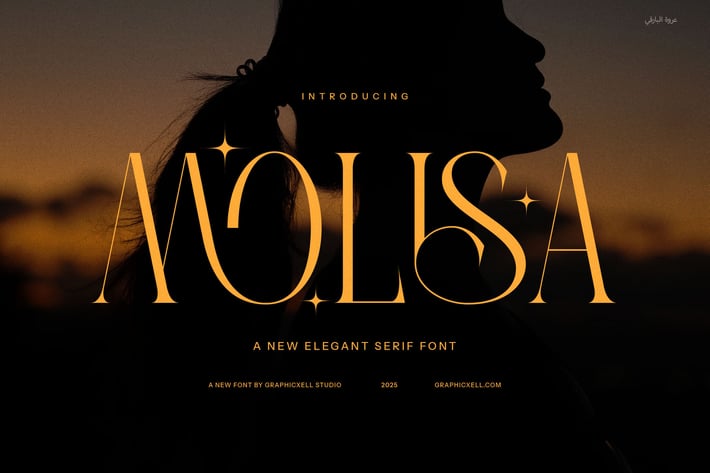
Molisa Elegant Serif Font
Molisa Elegant Serif is a refined and stylish typeface that embodies sophistication, modernity, and timeless beauty. Designed with precision, this font features graceful serifs, smooth curves, and a collection of exquisite ligatures and alternates that add a touch of uniqueness to any design.
With its luxurious yet contemporary appeal, Molisa is perfect for high-end branding, editorial layouts, and premium packaging. Its delicate letterforms and well-balanced proportions create an effortlessly elegant aesthetic, making it ideal for fashion labels, boutique businesses, upscale restaurants, and creative projects that demand a distinctive, polished look.
What sets Molisa apart is its ability to adapt seamlessly to different applications—whether for elegant logo designs, magazine headlines, stylish invitations, or sophisticated website typography. Its high readability combined with artistic details ensures that every design feels refined and captivating.
Designed for those who appreciate beauty in typography, Molisa Elegant Serif offers endless creative possibilities with its alternates and ligatures, allowing for custom typography that feels unique and exclusive. Whether used in print or digital formats, this font enhances visual storytelling, adding a sense of class and sophistication to every project.
Elevate your designs with the graceful charm of Molisa Elegant Serif. Perfect for brands that seek to make a lasting impression, this typeface brings a touch of timeless elegance and modern luxury, ensuring your work stands out with unparalleled style.
With its luxurious yet contemporary appeal, Molisa is perfect for high-end branding, editorial layouts, and premium packaging. Its delicate letterforms and well-balanced proportions create an effortlessly elegant aesthetic, making it ideal for fashion labels, boutique businesses, upscale restaurants, and creative projects that demand a distinctive, polished look.
What sets Molisa apart is its ability to adapt seamlessly to different applications—whether for elegant logo designs, magazine headlines, stylish invitations, or sophisticated website typography. Its high readability combined with artistic details ensures that every design feels refined and captivating.
Designed for those who appreciate beauty in typography, Molisa Elegant Serif offers endless creative possibilities with its alternates and ligatures, allowing for custom typography that feels unique and exclusive. Whether used in print or digital formats, this font enhances visual storytelling, adding a sense of class and sophistication to every project.
Elevate your designs with the graceful charm of Molisa Elegant Serif. Perfect for brands that seek to make a lasting impression, this typeface brings a touch of timeless elegance and modern luxury, ensuring your work stands out with unparalleled style.